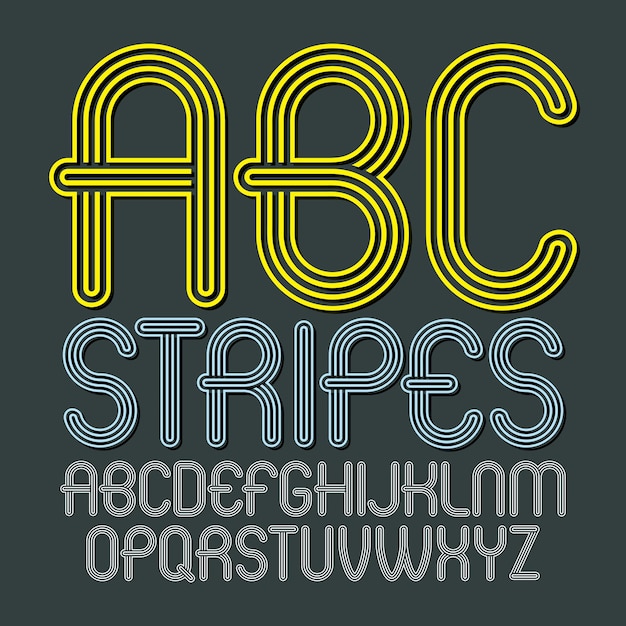
Set of trendy modern vector capital alphabet letters isolated. Disco cursive rounded font for use as business poster design elements. Created using geometric triple stripes